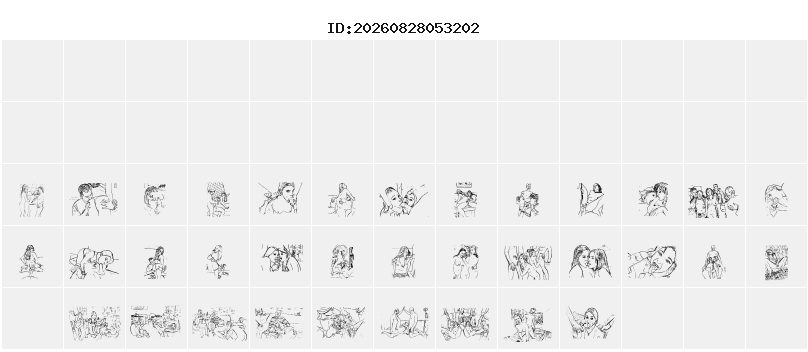
• Font Name: Trendy Pornography
• Full Font Name: Trendy Pornography
• Version: Version 1.00 June 27, 2011, initial release
• Designer: WMK
• Manufacturer: Fabien Delage - The Wondermaker
• Description: For adults only. Rated X